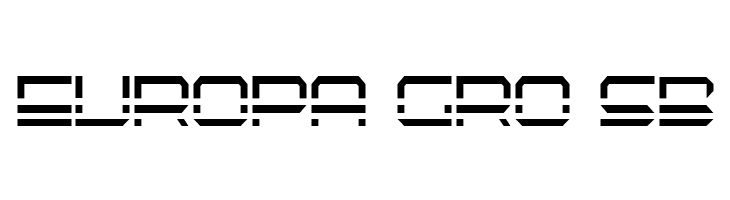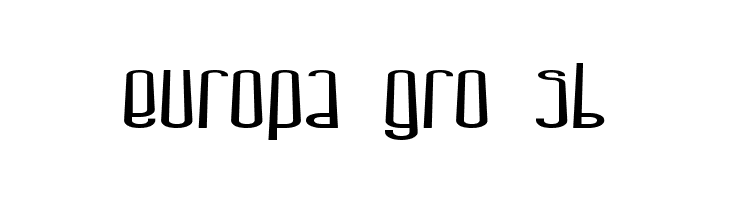
A bold, playful font with irregular, dynamic letterforms and a retro-modern vibe.
A futuristic, segmented font with a digital display style.
A bold, geometric font with sharp angles and a modern, artistic style.
A modern, narrow font with bold, slender letterforms.